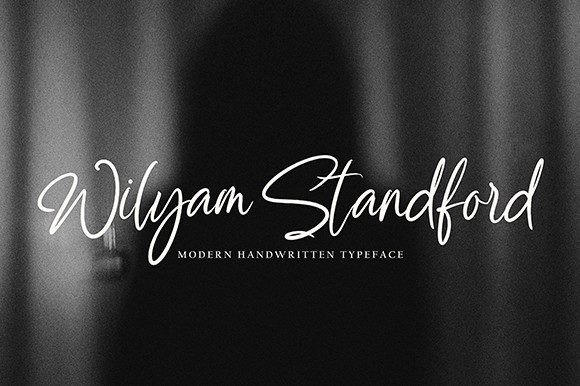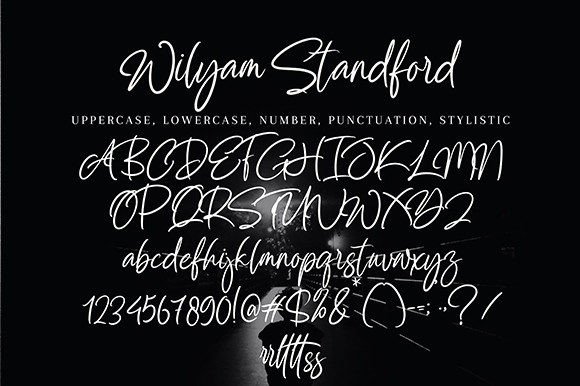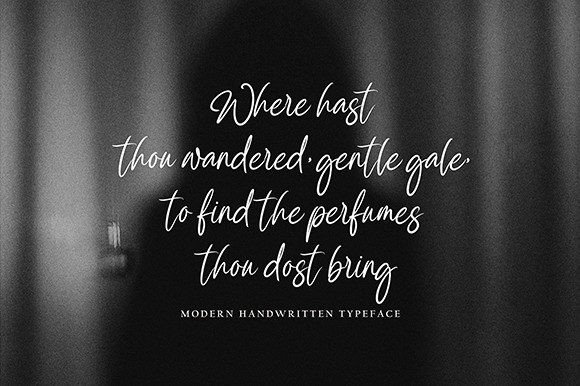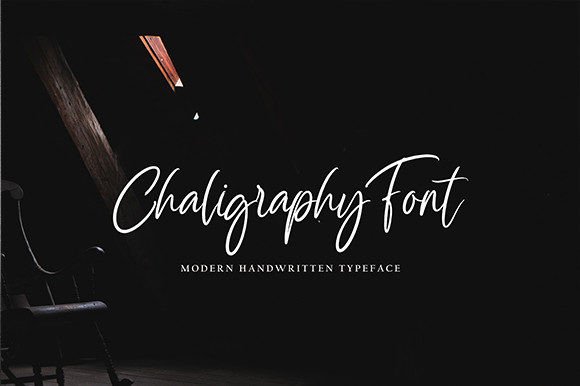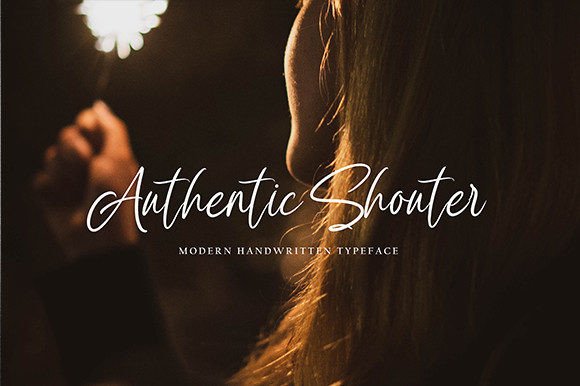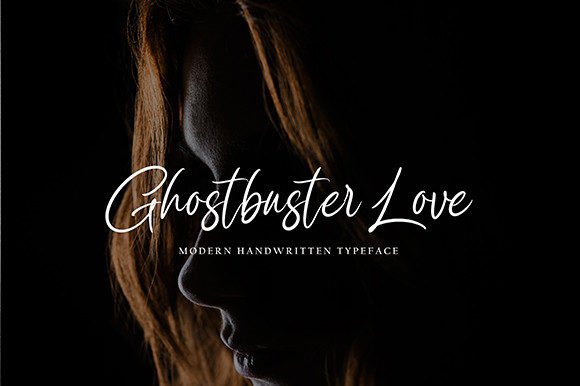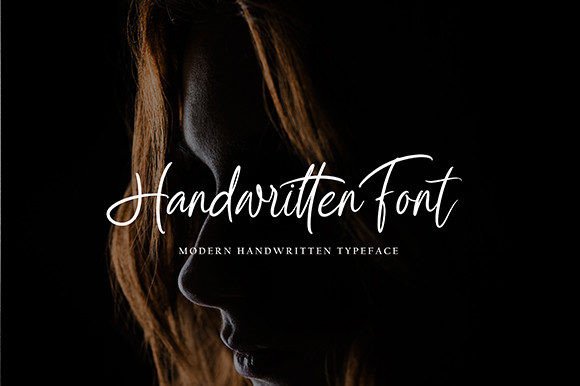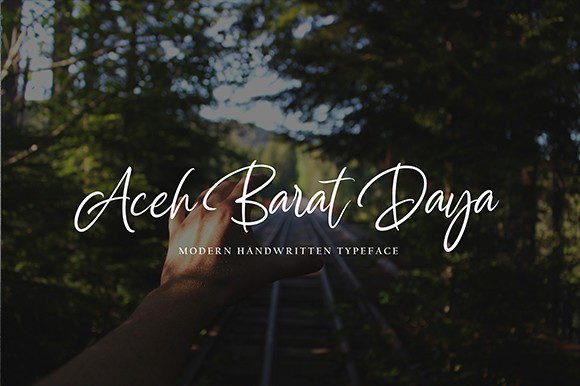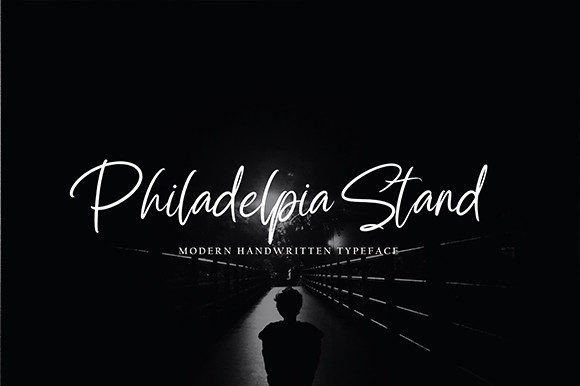
Wilyam Stanford Font
About Wilyam Stanford Font
**Wilyam Stanford Font: An Elegantly Delicate Script**
The Wilyam Stanford font is a stunning and delicate script font that radiates elegance and sophistication. This typeface was meticulously designed to provide a beautiful and rejuvenating aesthetic to your design projects. Here’s how you can utilize the Wilyam Stanford font to infuse your designs with elegance and class:
1. **Invitations and Wedding Stationery:** Create enchanting wedding invitations, RSVP cards, and wedding stationery using the Wilyam Stanford font. Its delicate and graceful script style is perfect for adding a touch of romance to your special day.
2. **Greeting Cards:** Design elegant and heartfelt greeting cards for a variety of occasions, including birthdays, anniversaries, and thank-you notes. The font’s delicate appearance elevates the sentiment of your messages.
3. **Typography Art:** Craft captivating typography art featuring inspiring quotes, motivational phrases, or expressions of love. The Wilyam Stanford font’s elegance enhances the visual impact of your artwork.
4. **Logo and Branding:** Utilize the Wilyam Stanford font to design logos and branding materials for businesses and products aiming for a refined and upscale image. It is particularly suitable for industries associated with luxury, beauty, and fashion.
5. **Magazine and Editorial Design:** Incorporate the font into magazine layouts and editorial designs to create an exquisite and eye-catching look for headlines, subheadings, and feature articles.
6. **Product Packaging:** Apply the Wilyam Stanford font to product packaging for high-end and premium products, such as cosmetics, perfumes, and gourmet foods. It conveys a sense of luxury and sophistication.
7. **Website Headers and Banners:** Use the font in website headers and banners to establish an elegant and inviting online presence, especially for websites related to lifestyle, fashion, or upscale brands.
8. **Event Invitations:** Design invitations for upscale events, gala dinners, fundraisers, and corporate gatherings using the Wilyam Stanford font to convey an image of sophistication and class.
9. **Social Media Graphics:** Create visually appealing and shareable social media graphics, including Instagram posts and Pinterest pins, with the Wilyam Stanford font to engage and captivate your audience.
10. **Book Covers:** Employ the font on book covers, particularly for novels and books that emphasize elegance, romance, and sophistication.
11. **Luxury Branding:** The Wilyam Stanford font is an ideal choice for luxury brand identity and packaging design. It enhances the perception of exclusivity and quality.
12. **Restaurant Menus:** Use the font for upscale restaurant menus, wine lists, and cocktail menus to emphasize the elegant dining experience.
13. **Fashion Labels:** Apply the font to clothing labels, hangtags, and branding materials for fashion brands that seek to communicate style and refinement.
14. **Personal Stationery:** Design personalized stationery, including letterheads and notecards, with the Wilyam Stanford font to convey a sense of grace and sophistication in your correspondence.
15. **Cosmetic and Beauty Labels:** Use the font on labels for cosmetics, skincare products, and beauty brands that want to highlight their premium quality.
16. **Interior Design and Home Decor:** Incorporate the font into marketing materials for interior design services, home decor brands, and upscale furniture retailers.
17. **Art and Gallery Invitations:** Create invitations and promotional materials for art exhibitions and gallery openings with the Wilyam Stanford font to add a touch of artistry and elegance.
The Wilyam Stanford font’s delicate script style makes it an incredibly versatile choice for bringing elegance and class to your design projects. Its exquisite and rejuvenating appearance empowers you to craft visuals that resonate with audiences seeking refinement, beauty, and sophistication.